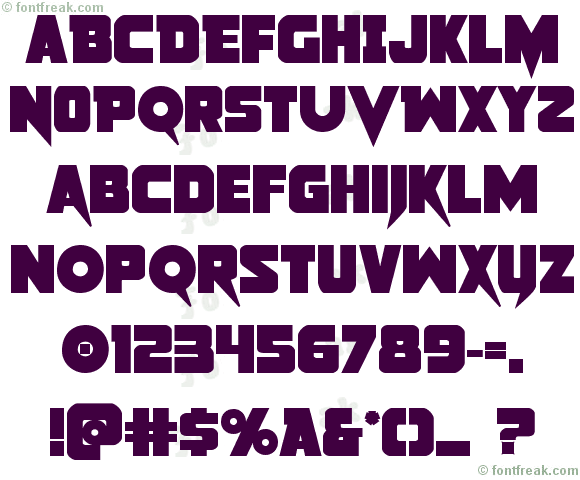
Pistoleer Bold
Pistoleer Bold, designed by Daniel Zadorozny, is a striking display font that falls under the decorative category. Known for its distinctive, bold character, this typeface features a strong stroke weight and minimal contrast, making it highly legible even at larger sizes. The letters possess a slightly condensed form, allowing for efficient use of space, while the overall design incorporates a playful, modern aesthetic that is both eye-catching and memorable.
The font lends itself well to a variety of creative applications. It is particularly well-suited for movie posters where a bold statement is needed, ensuring titles stand out against the backdrop. Additionally, Pistoleer Bold is an excellent choice for restaurant menus, giving a contemporary yet approachable feel that can attract diners. Small business owners can utilize this font for branding materials, such as business cards or flyers, to convey a strong identity. Furthermore, its unique style makes it ideal for use in promotional graphics and social media posts, helping content creators to capture their audience's attention.
Target audiences for Pistoleer Bold include graphic designers seeking a unique font for projects, small business owners aiming to enhance their branding, and content creators looking to add flair to their digital content. The versatility of this font makes it an appealing choice for a wide range of applications.
What sets Pistoleer Bold apart is its ability to combine playful design with functionality. The font's distinctive style not only captures attention but also maintains clarity, ensuring that your message is effectively communicated. For those interested in exploring this unique typeface, the Pistoleer Bold font free download is readily available, allowing you to incorporate this standout design into your creative projects.